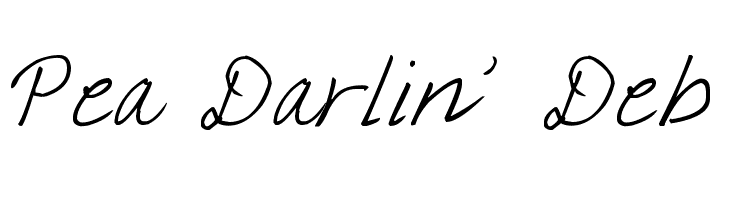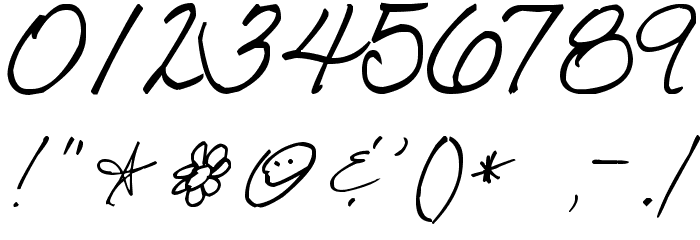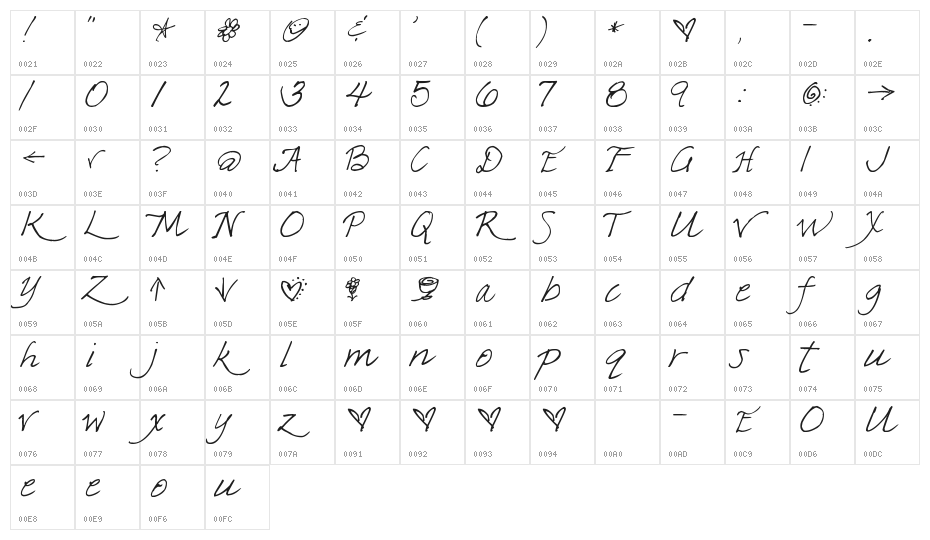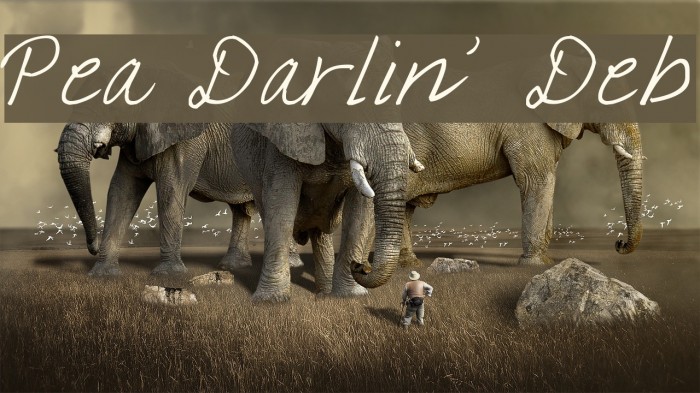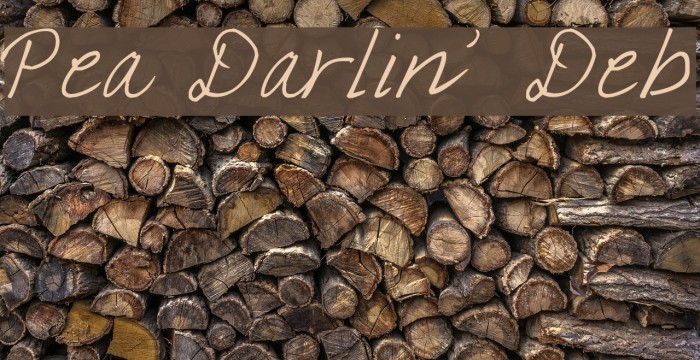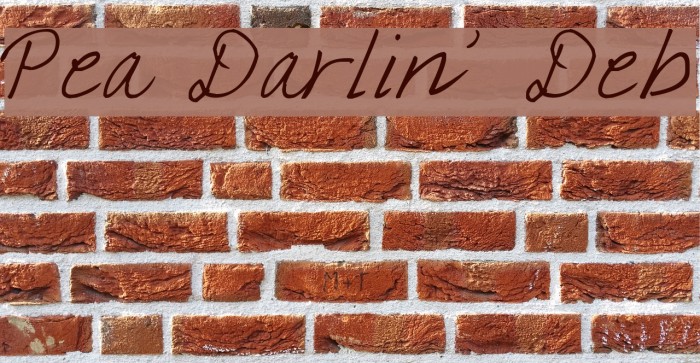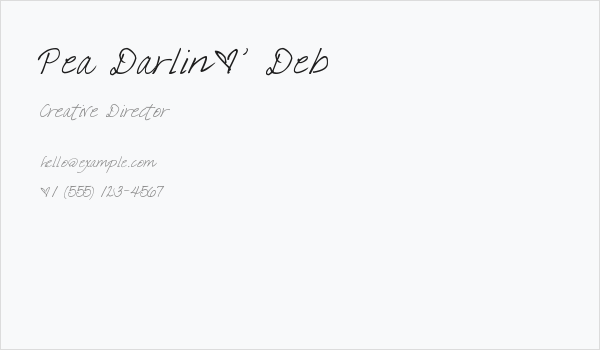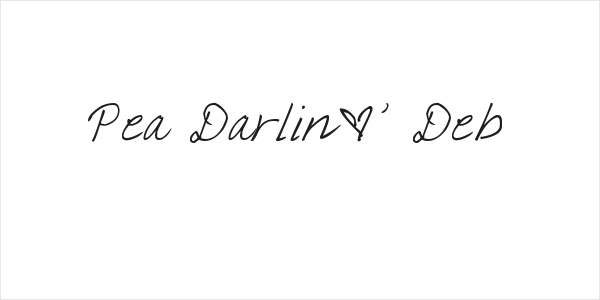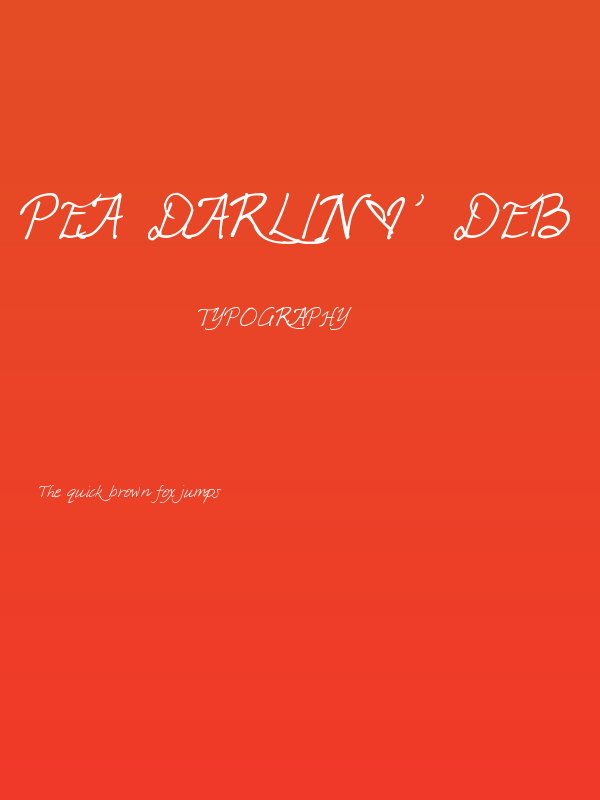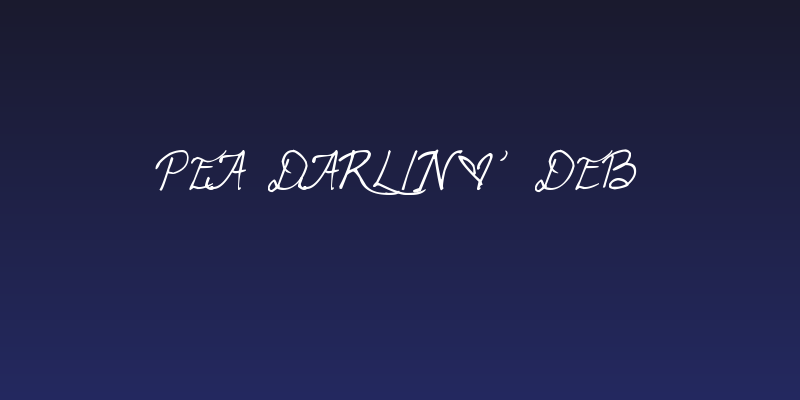
Pea Darlin' Deb Font
Pea Darlin' Deb Description
This font exudes a playful and whimsical charm with its handwritten style. The letters are crafted with a fluid, cursive touch, giving it a personal and informal feel. The strokes vary in thickness, adding a dynamic and lively character to the text. The uppercase letters are elegantly looped, while the lowercase letters maintain a consistent flow, enhancing readability. Numbers and special characters are designed with the same playful essence, making them suitable for creative projects. The overall appearance is both casual and artistic, perfect for conveying a friendly and approachable tone.